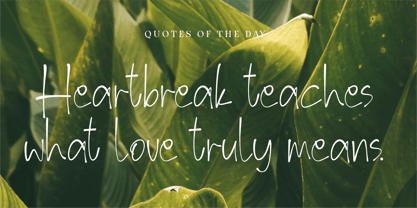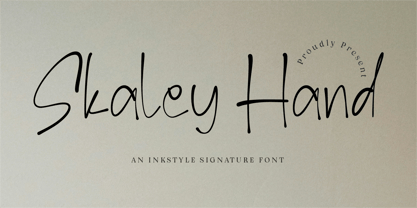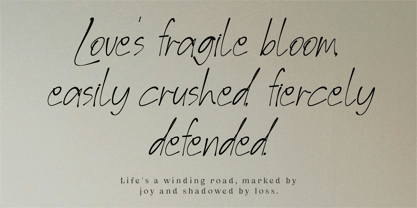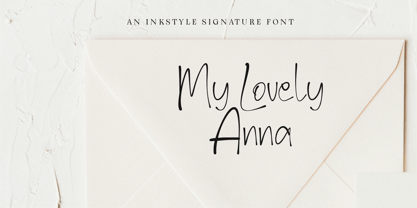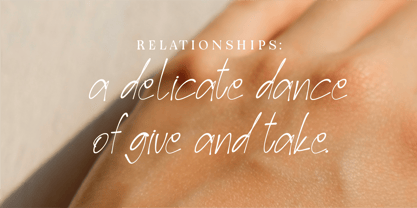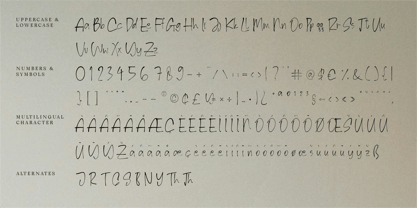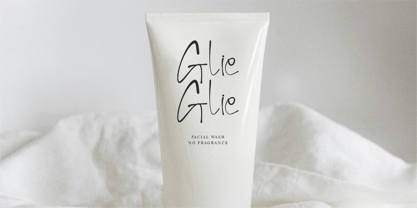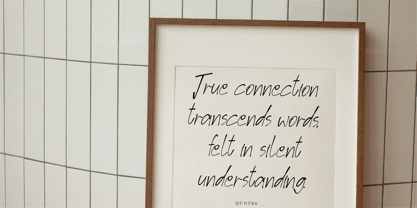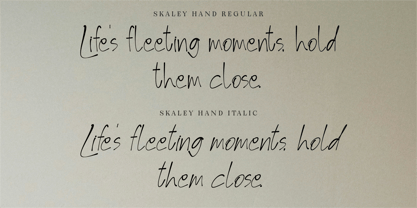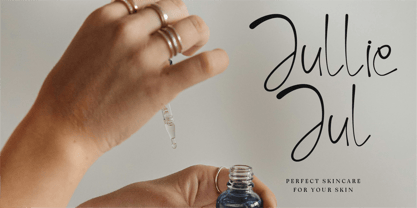
Skaley Hand – An Elegant Inkstyle Signature Font
Step into elegance with Skaley Hand, a signature handwritten font designed in a refined ink-style monoline. With its delicate curves, natural pen flow, and clean minimalism, this typeface evokes professionalism with a personal touch.
Perfect for branding, logo design, fashion labels, photography watermarks, stationery, quotes, or upscale packaging, Skaley Hand brings a high-end handwritten feel to your creative projects. Its tall letterforms and soft strokes mimic a true signature—graceful, modern, and stylish.
Why Choose Skaley Hand?
🖋 Signature Ink Style: Inspired by elegant penmanship with soft, fluid lines.
💼 Perfect for Personal Branding: Ideal for logos, business cards, and professional projects.
🧾 Minimalist & Modern: Thin and airy design that stays effortlessly readable.
🌍 Multilingual Ready: Includes numbers, punctuation, and wide language support.
- Standard Character A-Z, a-z, 0-9, Punctuation & symbols
- Regular and Italic